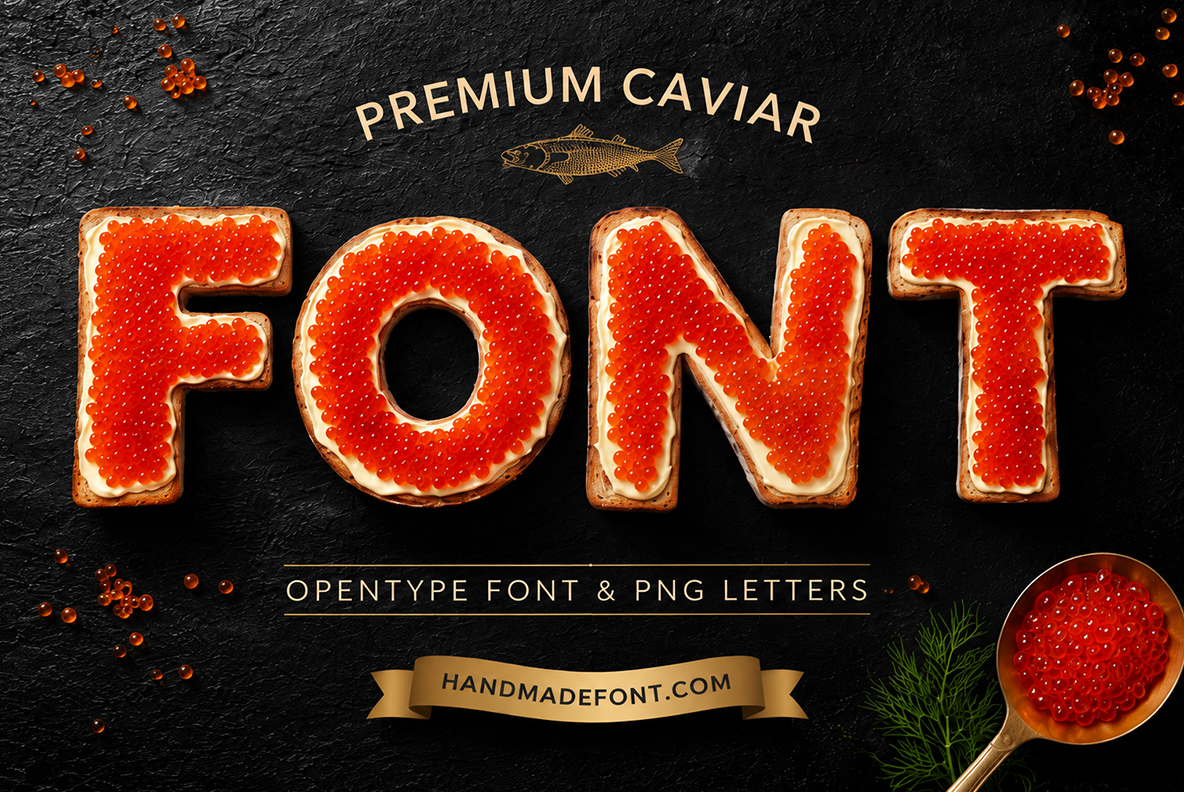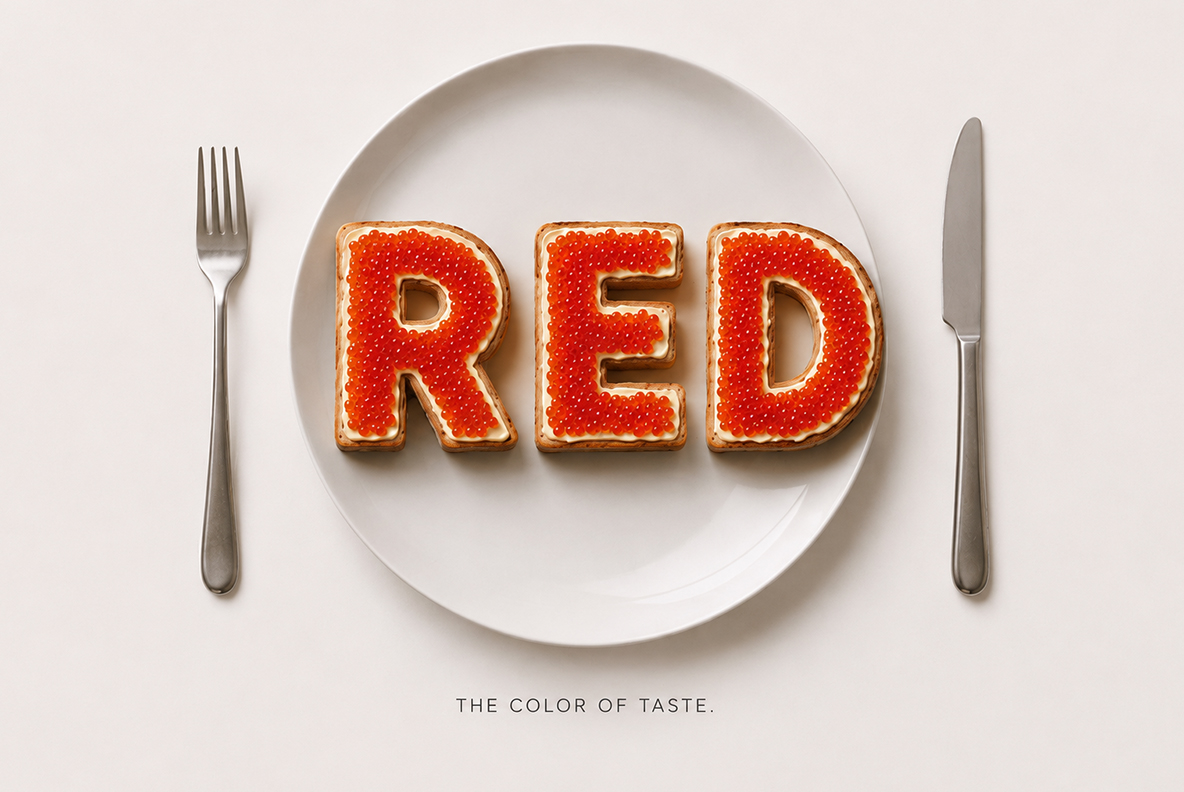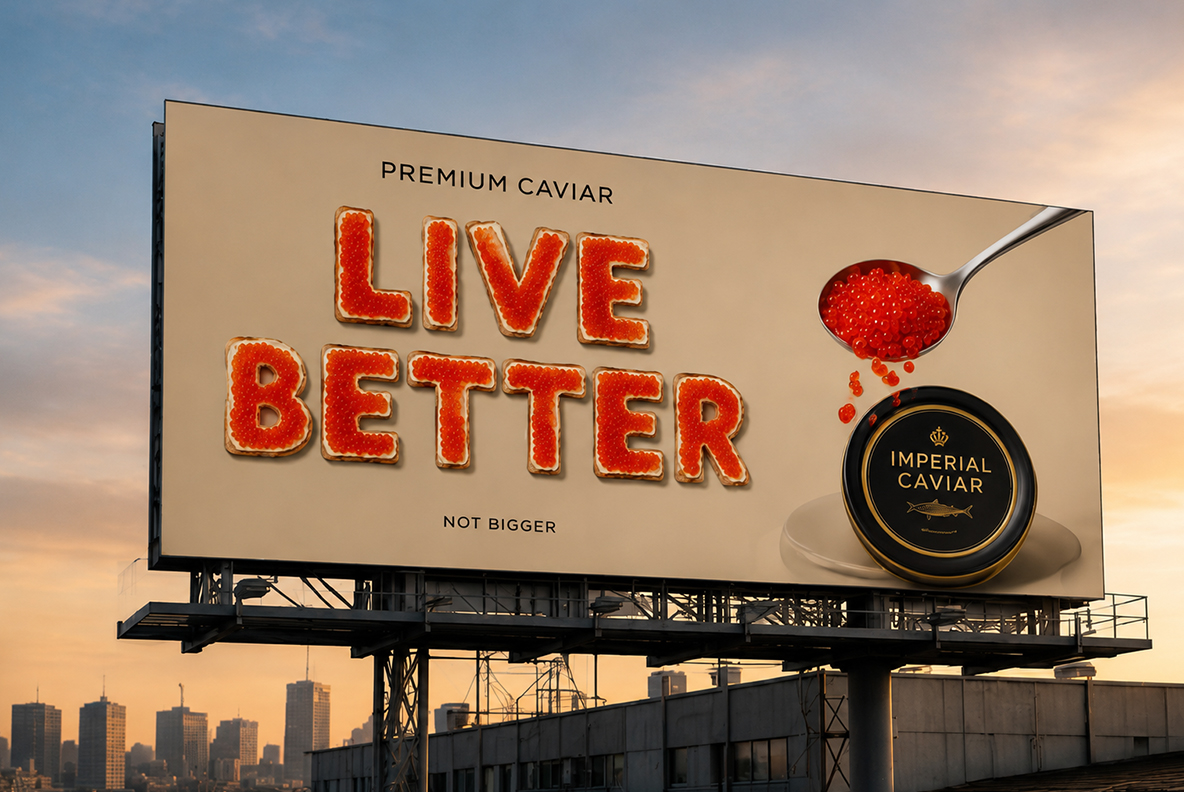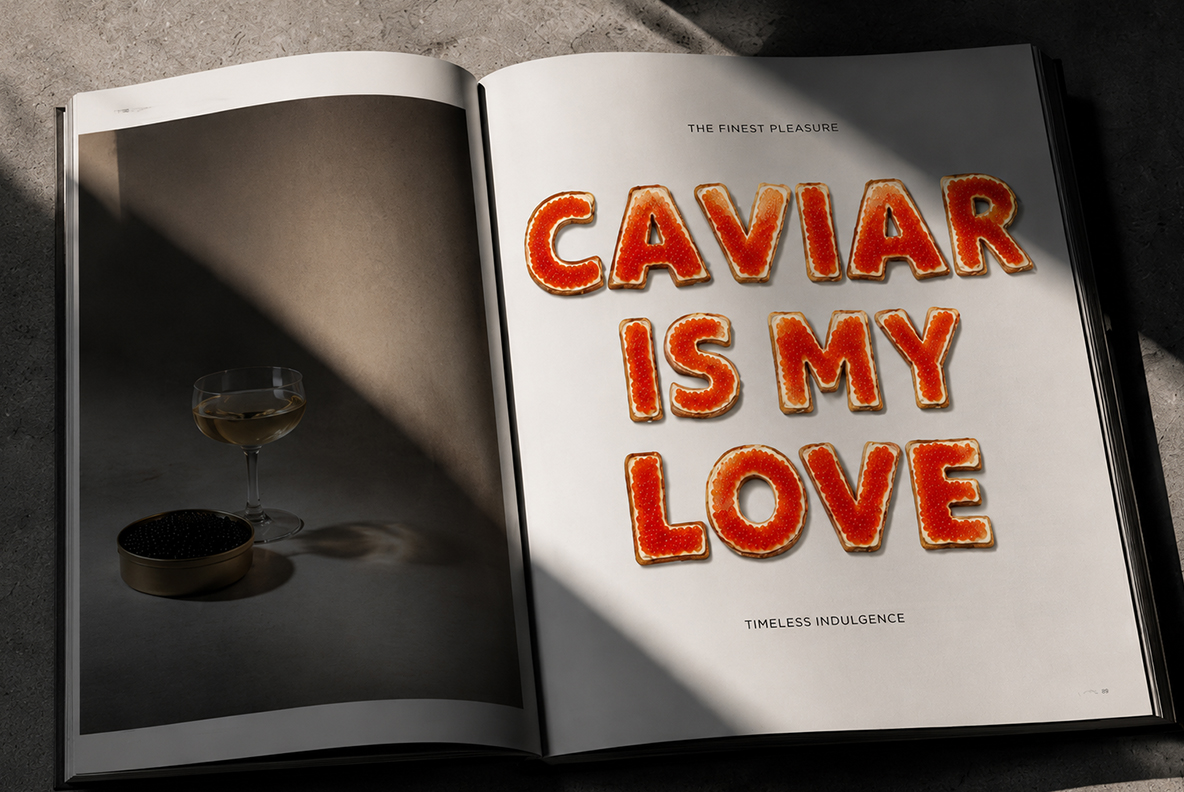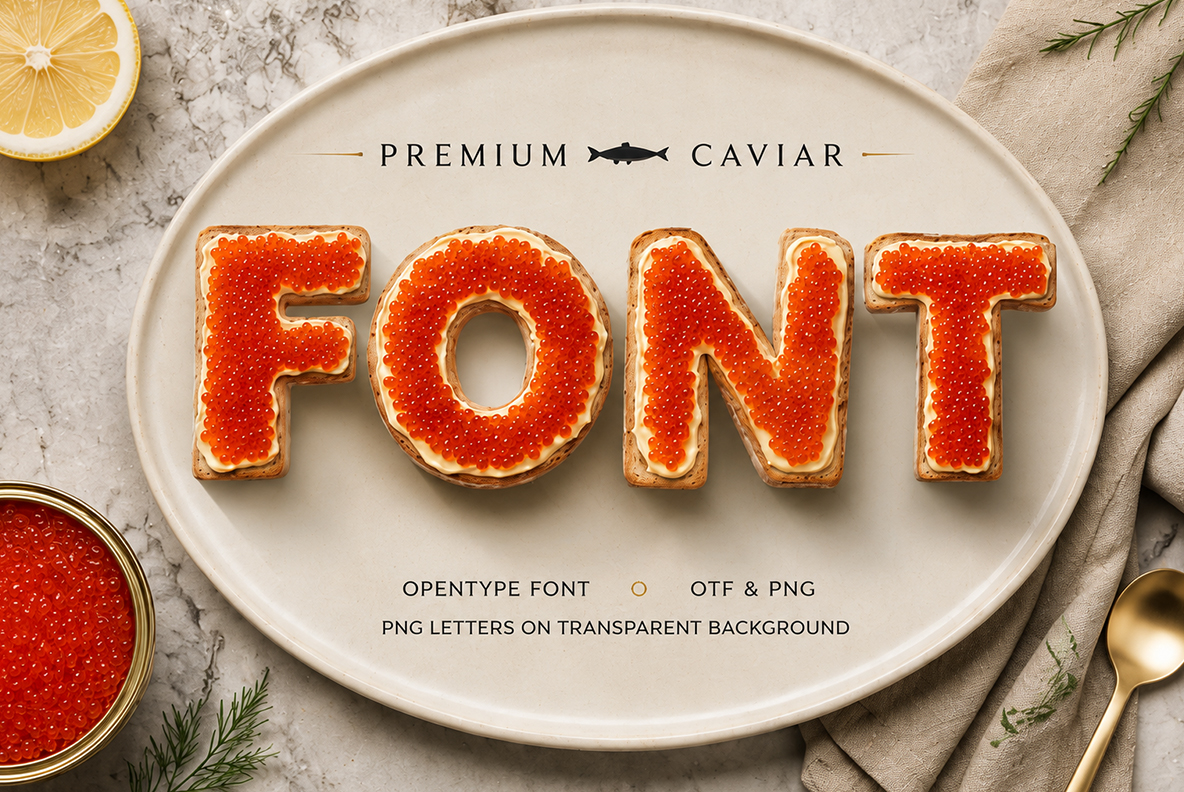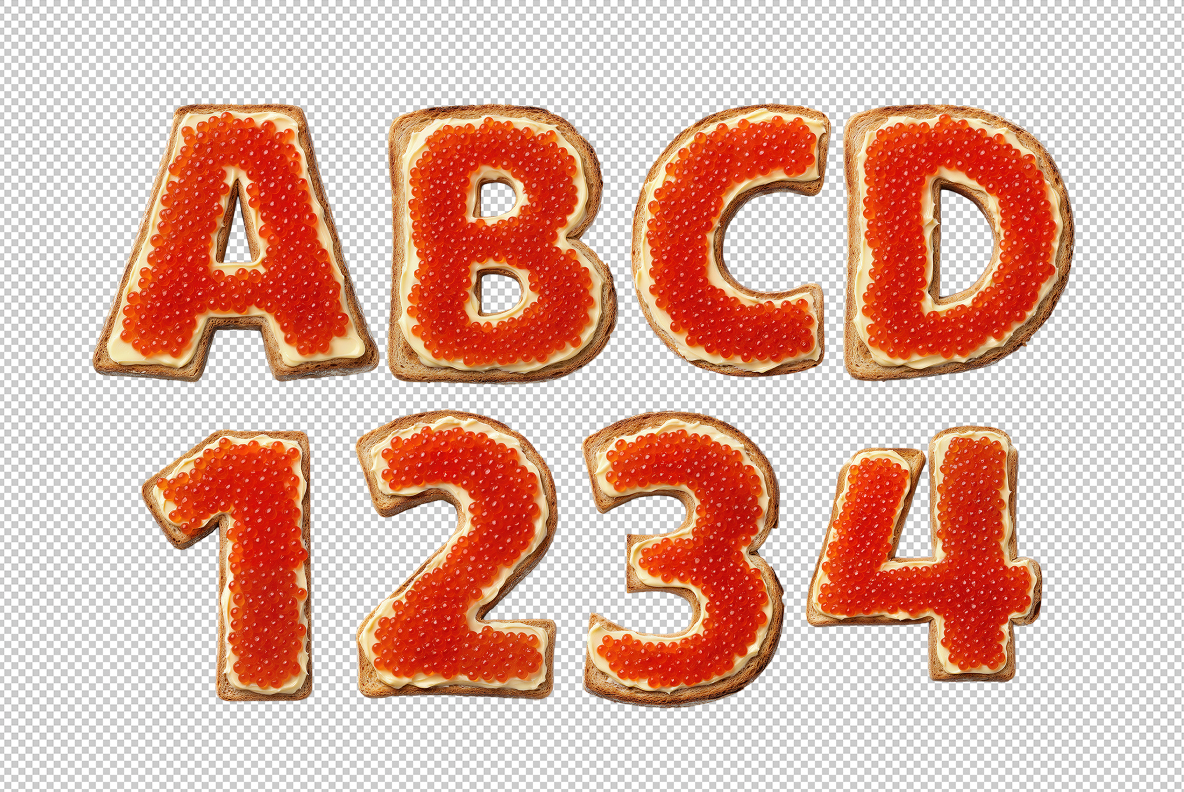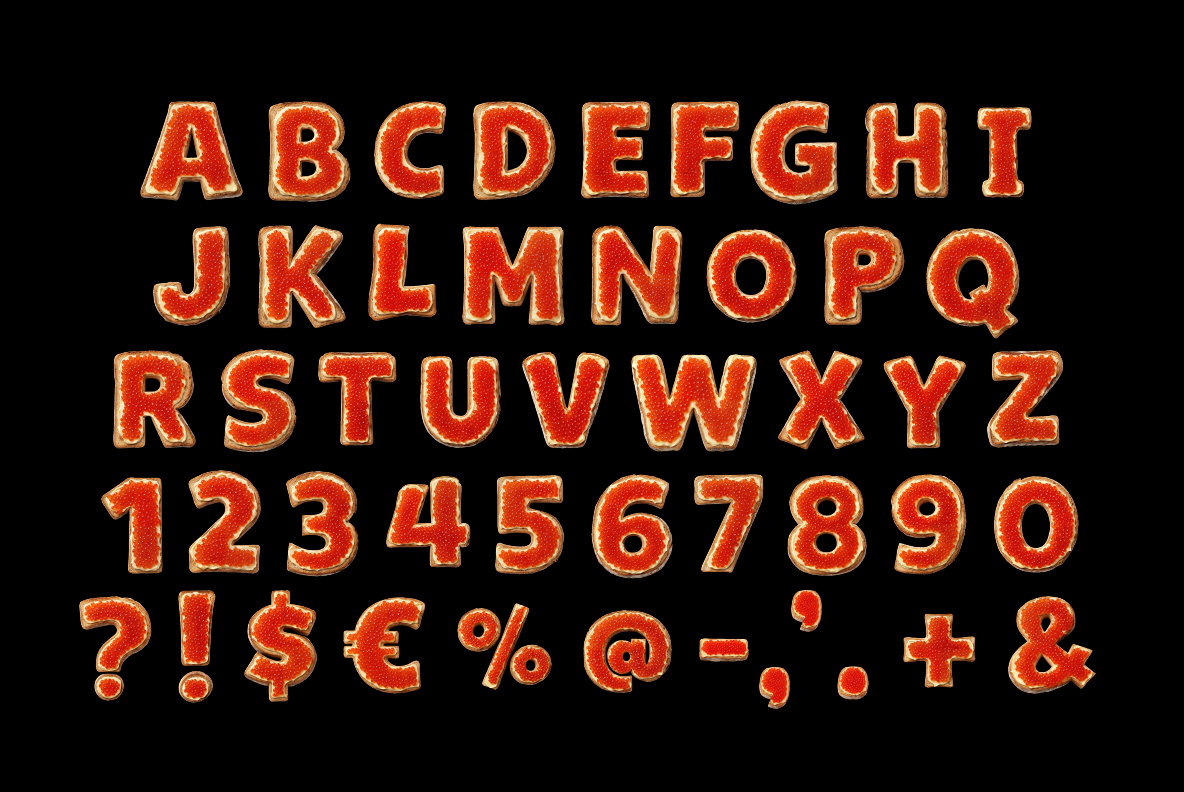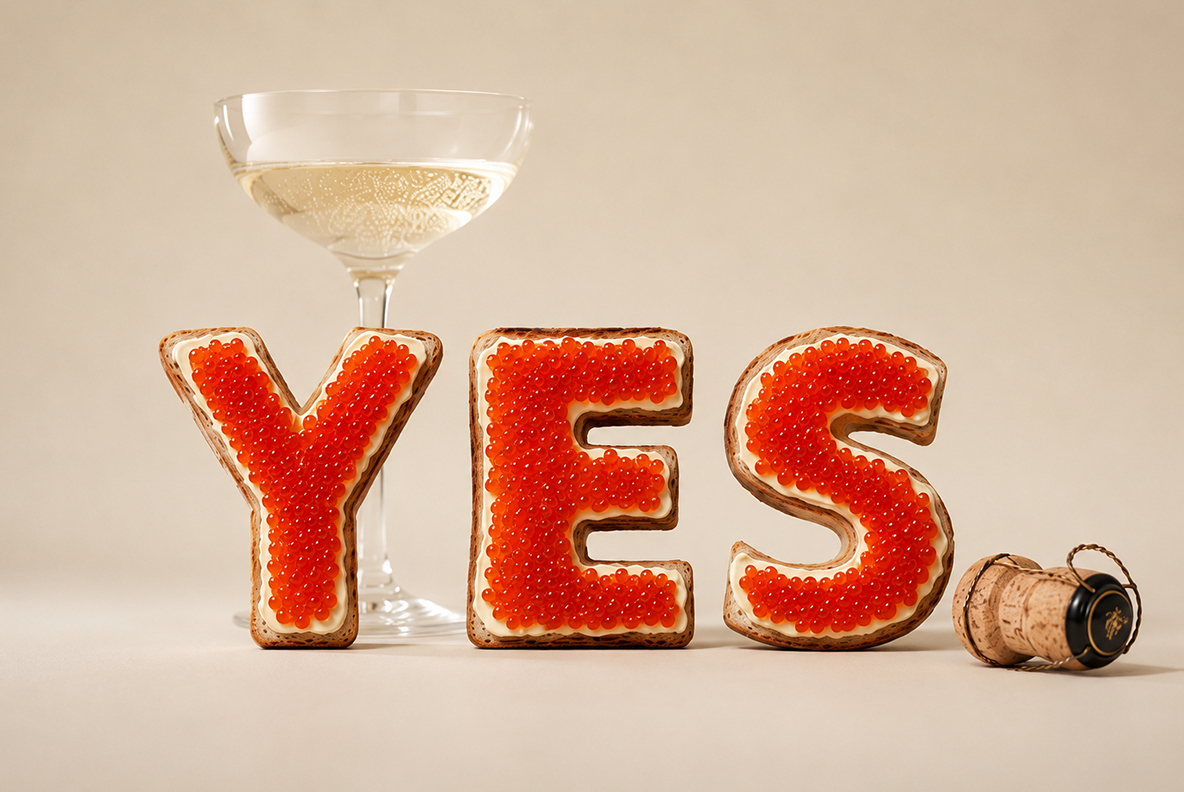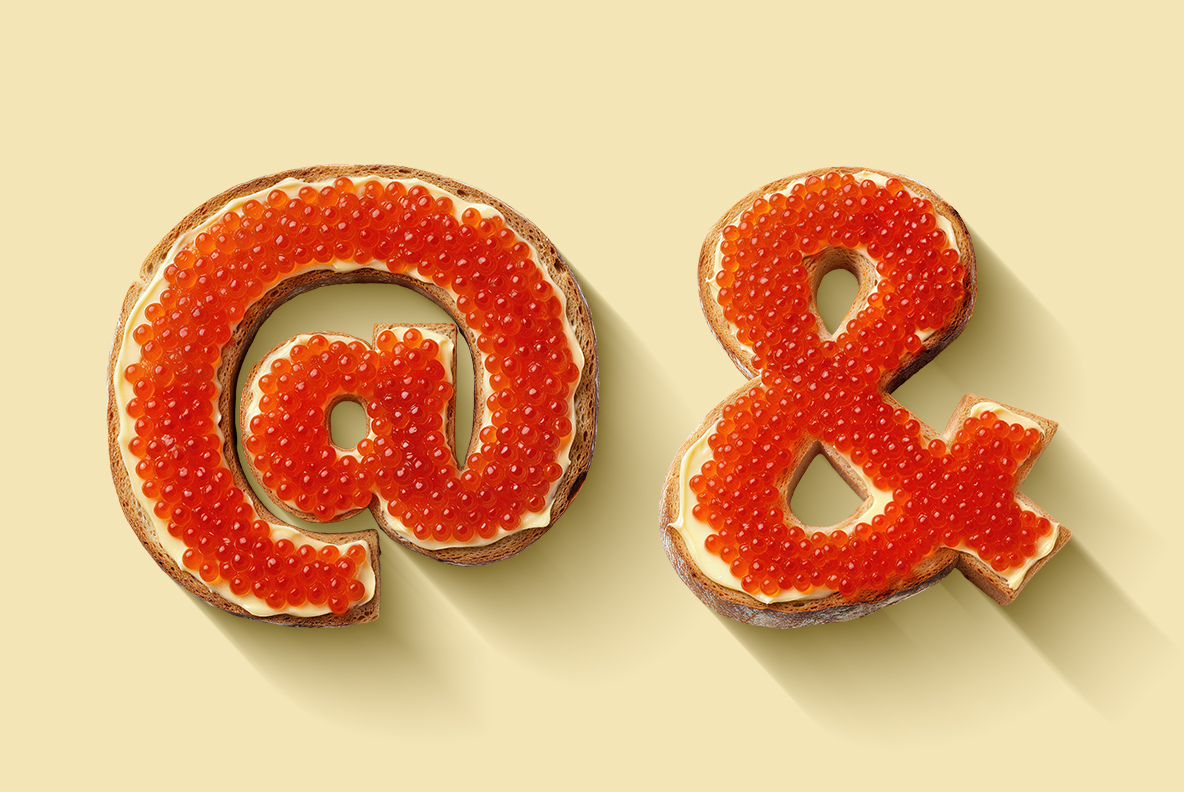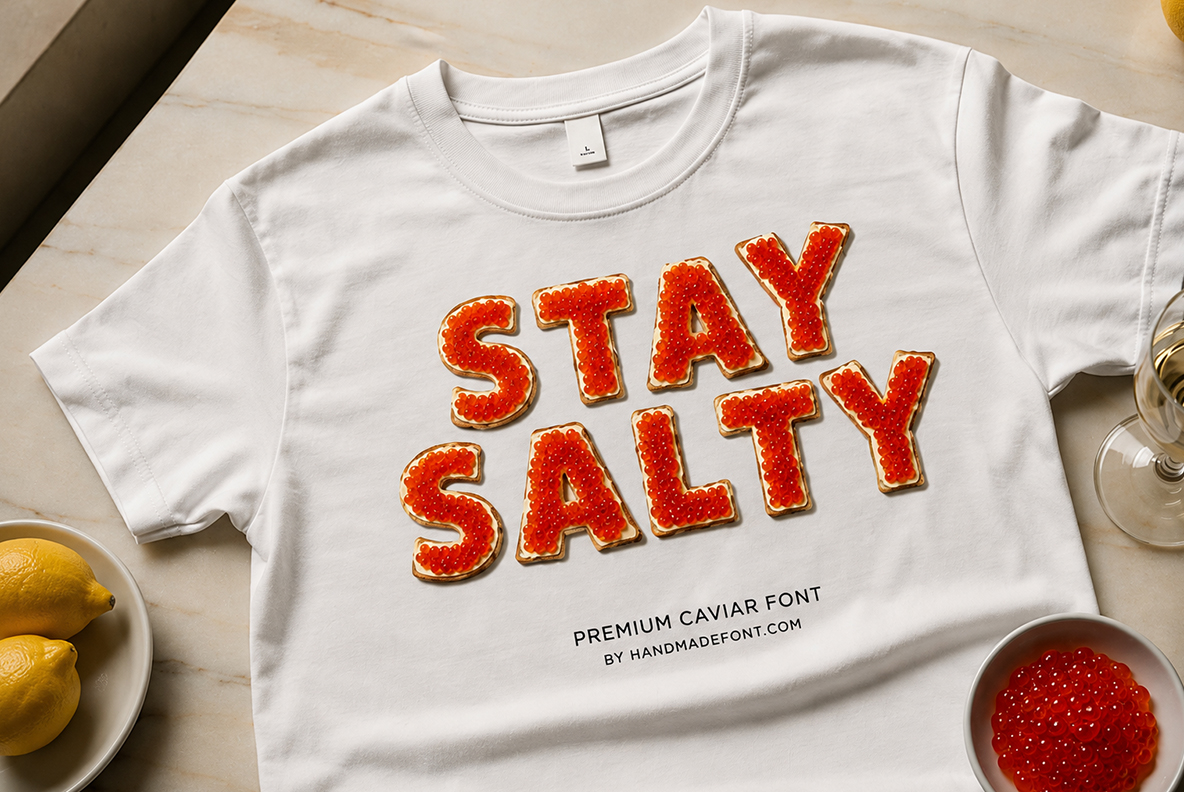
Premium Caviar Font – Glossy Red Roe Lettering on Toast
Premium Caviar Font turns each letter into a spoonful of glistening red roe, piled onto golden buttered toast until every character looks worth its weight in champagne. It’s built for anything that needs to whisper “I’m expensive” without saying it out loud — menus, packaging, a smug social post. The set ships as a ready-to-type OTF plus individual transparent PNG letters for pixel-perfect layouts.
A Font That Skipped the Vending Machine
Regular typography just doesn’t have the nerve to look this rich. Premium Caviar Font takes real red roe, spoons it generously onto a slice of toast, and lets the beads settle into the shape of every letter, number, and punctuation mark. The crumb of the bread peeks through at the edges, the butter catches the light, and the roe itself has that unmistakable wet shine that makes you want to lick the screen. It’s food photography pretending to be a typeface, or maybe a typeface that got tired of being flat.
Premium Caviar Font animated preview showing glossy red roe lettering forming on a dark background.
Menus That Make Diners Reach for Their Wallets
This is a headline font for anyone selling something people are supposed to feel fancy buying. Drop it into a seafood restaurant’s menu and watch the perceived price double. Wrap a tin of actual caviar in packaging that uses these letters and nobody will ask why it costs what it costs. It also works loose and playful — a cheeky Instagram caption, a champagne brand’s launch post, a dinner party invitation that wants to set expectations early. Because the texture does so much visual work on its own, you barely need to add anything else to the layout.
Premium Caviar Font spelling FONT in red caviar on toast over a dark stone background with a spoonful of roe and dill.
Premium Caviar Font complete uppercase alphabet, numbers and punctuation marks made of red caviar on toast, shown on black.
Premium Caviar Font spelling YES in red caviar letters beside a champagne coupe and cork on a beige backdrop.
Premium Caviar Font close-up of the at sign and ampersand glyphs covered in glossy red caviar on toast.
Premium Caviar Font spelling STAY SALTY in red caviar letters printed on a white T-shirt beside lemons and a caviar bowl.
Premium Caviar Font spelling EAT in red caviar letters on a red background with chopsticks lifting a single roe bead.
Premium Caviar Font spelling GOOD MOOD in red caviar letters printed on a canvas tote bag with a caviar therapy tagline.
Premium Caviar Font spelling NO in red caviar letters next to an open Imperial Caviar tin and spoon on black.
Premium Caviar Font spelling RICH in red caviar letters on a framed poster reading Luxury Is An Attitude.
Premium Caviar Font spelling RED in caviar letters centered on a dinner plate between a fork and knife.
Premium Caviar Font spelling LIVE BETTER in red caviar letters on an outdoor billboard above a city skyline.
Premium Caviar Font spelling Caviar Is My Love in red caviar letters across an open magazine spread.
Premium Caviar Font spelling FONT in red caviar letters on an oval plate, labeled with OTF and transparent PNG format details.
Premium Caviar Font individual red caviar letters A, B, C, D and numbers 1 to 4 isolated on a transparent background.